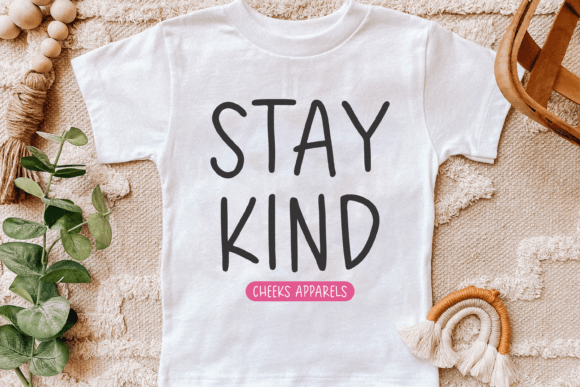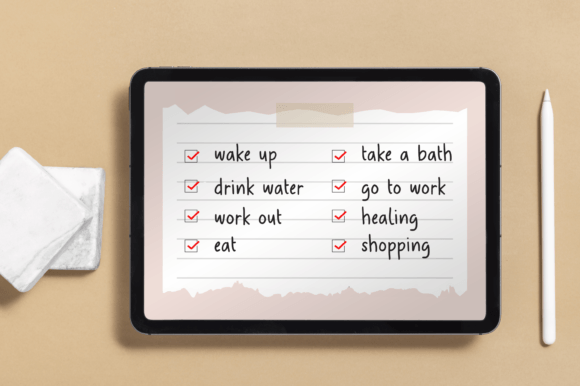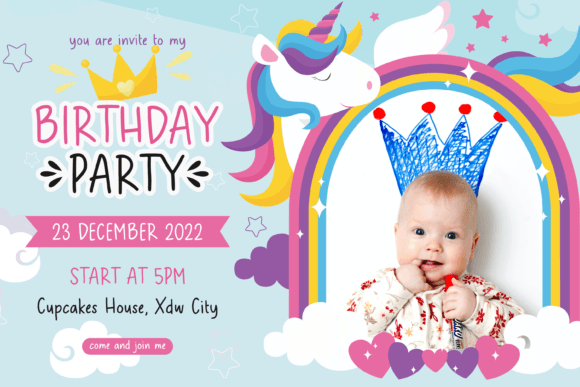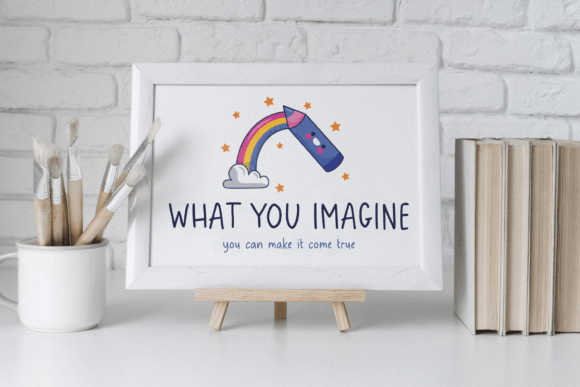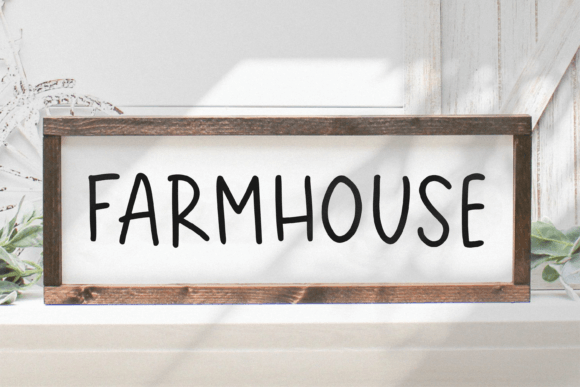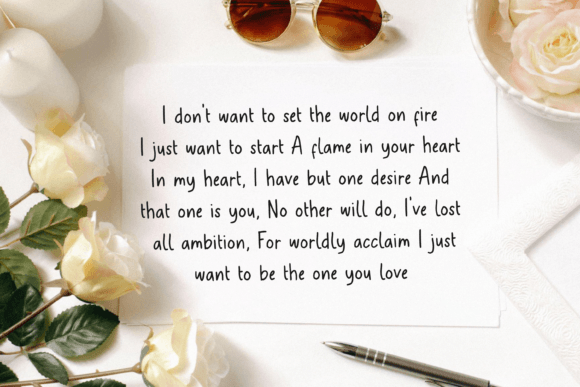
Introduction to Joyline Notes Font
Joyline Notes Is A Handwriting Font Joyline Notes is perfect for product packaging, branding project, magazines, social media, weddings, or just used to express words above the background.
Key Features of Joyline Notes Font